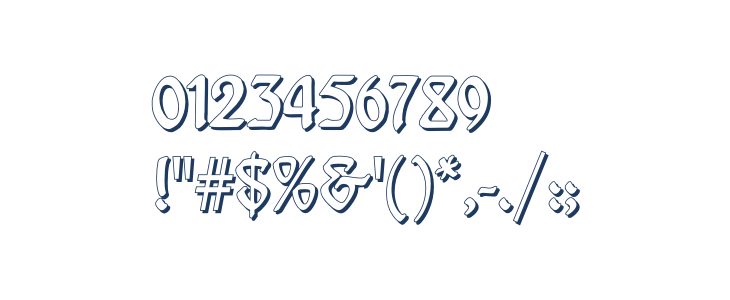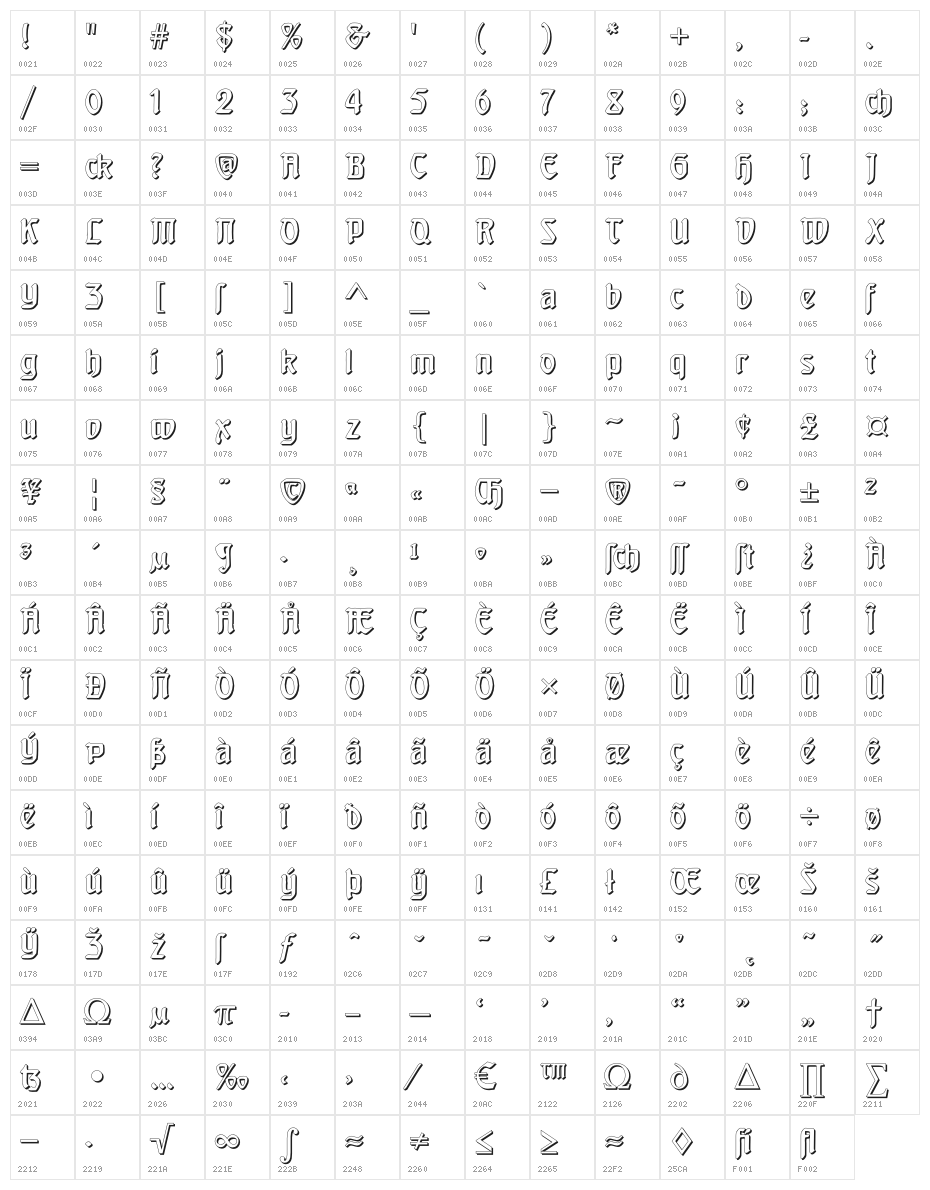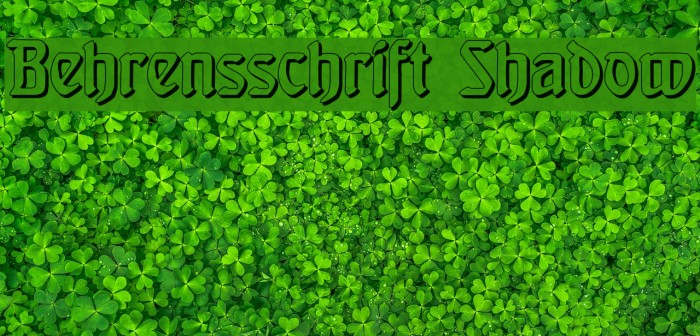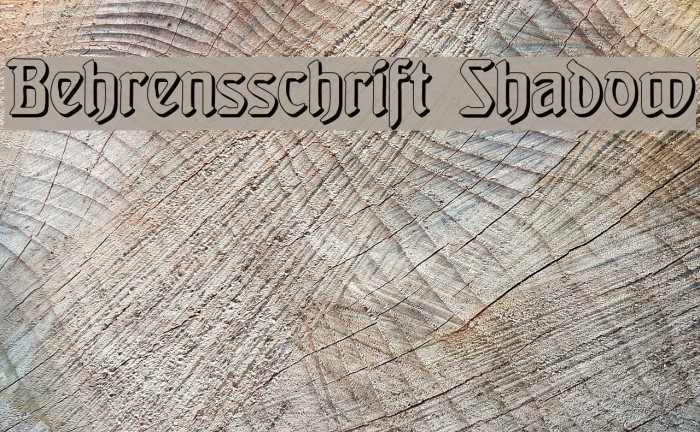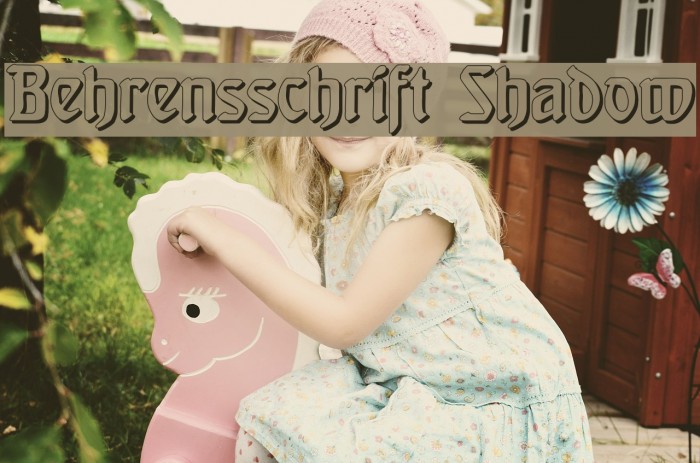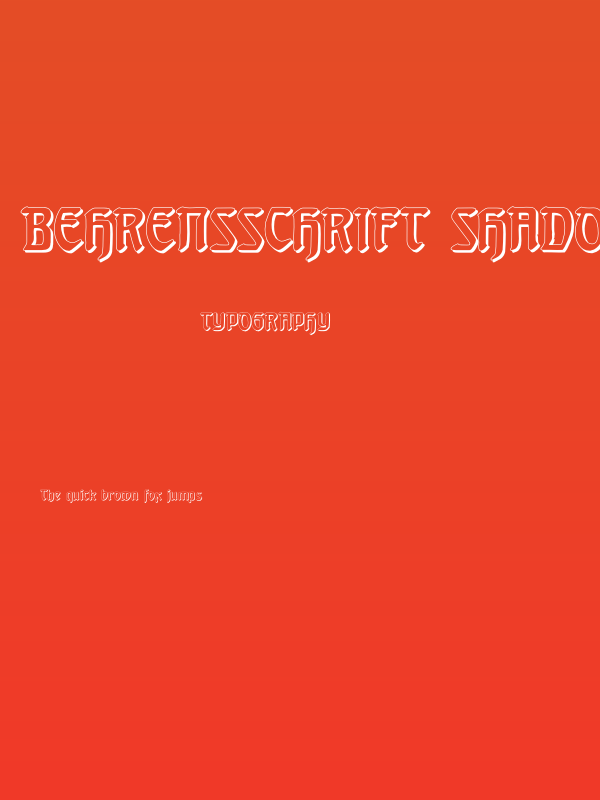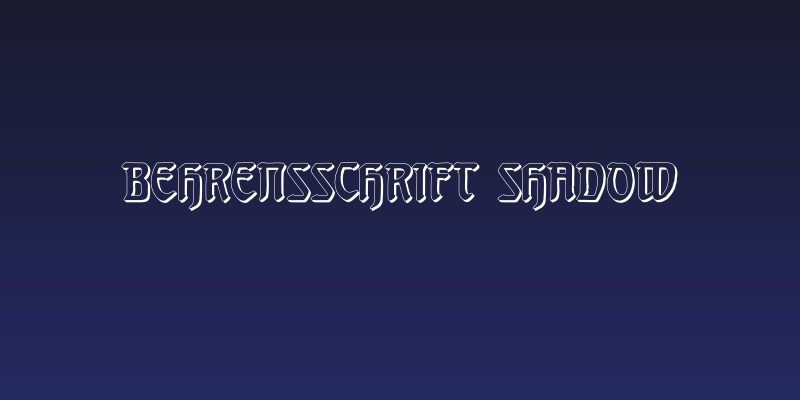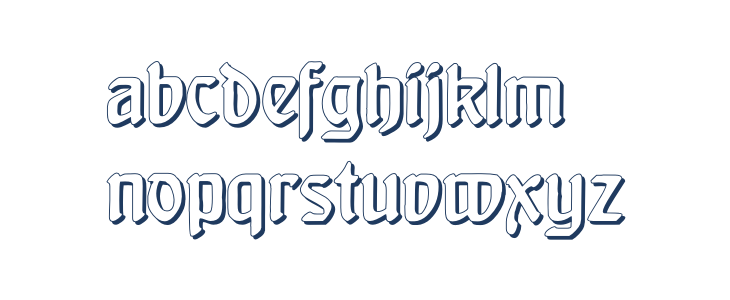
Behrensschrift Shadow Font
Behrensschrift Shadow Description
This font features a bold, shadowed style that combines elements of both traditional and modern design. The characters have a distinct, angular appearance with sharp edges and a three-dimensional effect created by the shadowing. This gives the font a strong, impactful presence, making it ideal for attention-grabbing headlines or titles. The uppercase and lowercase letters maintain a consistent style, with the shadow adding depth and dimension. The numerals and special characters are designed to match the overall aesthetic, ensuring a cohesive look across all text elements.